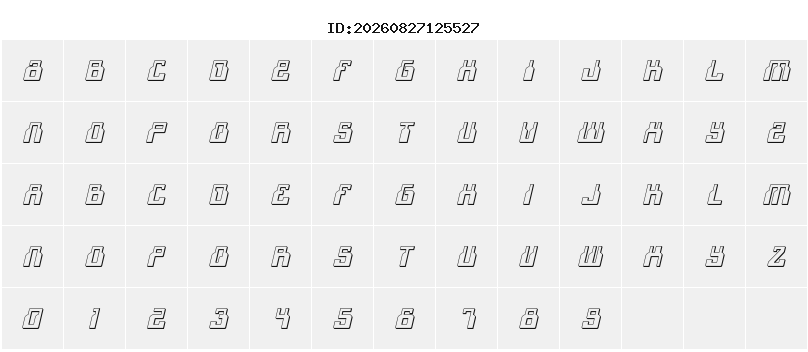
1968 Odyssey 3D Italic Preview
• Font Name: 1968 Odyssey 3D Italic
About 1968 Odyssey 3D Italic.ttf
1968 Odyssey 3D Italic.ttf is a modern, elegant sans-serif font designed for ultimate readability and visual harmony. Perfect for branding, headlines, web design, and print materials.